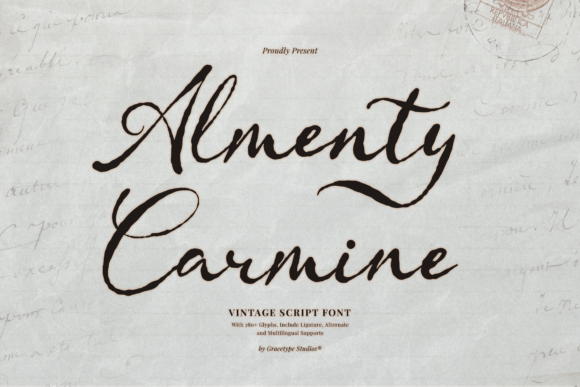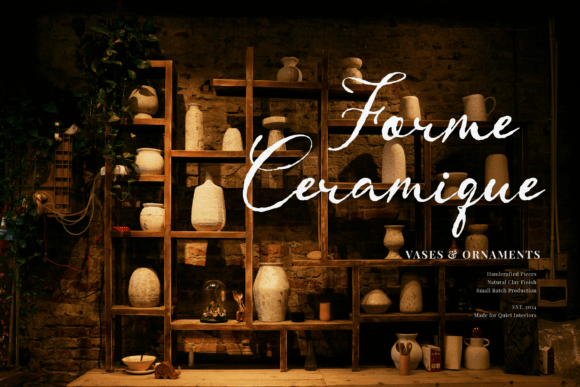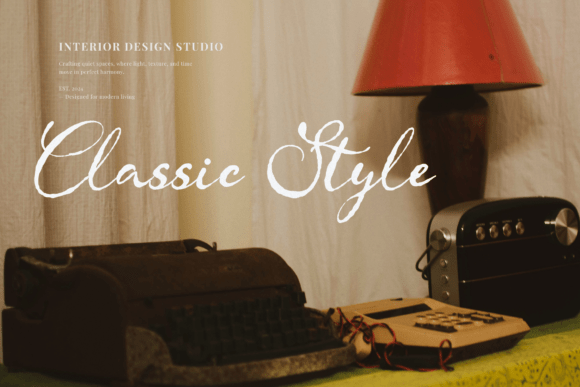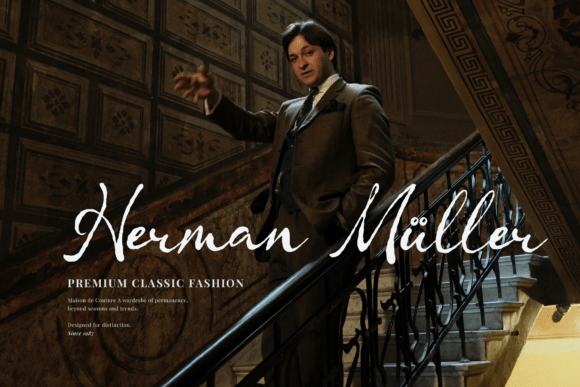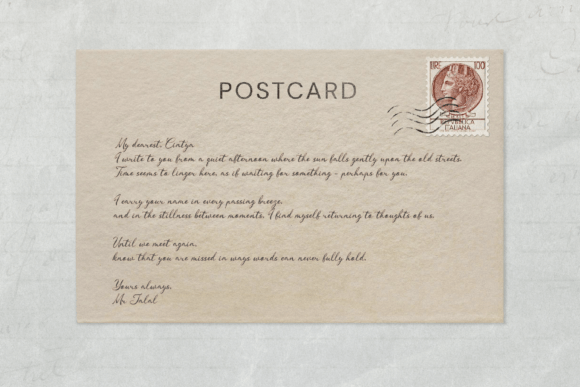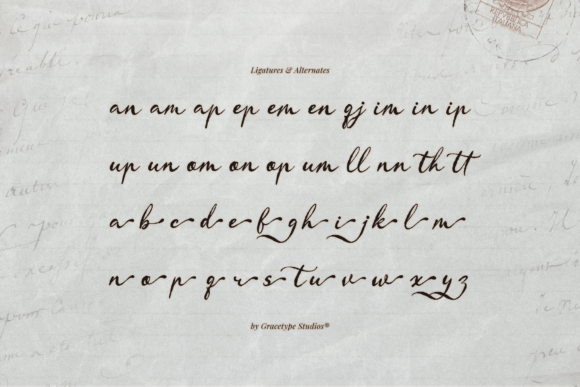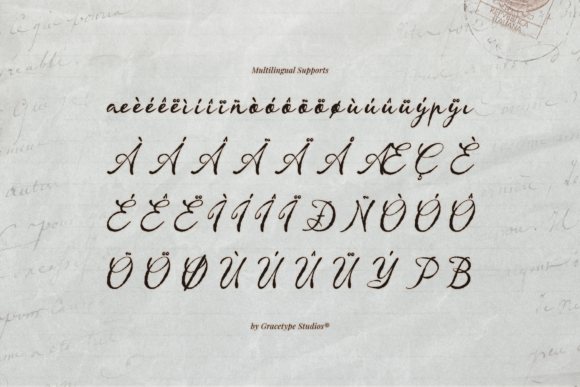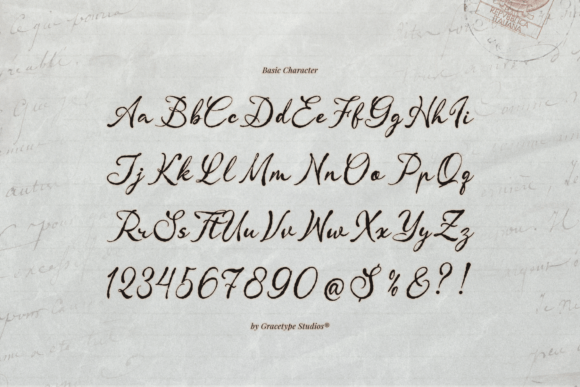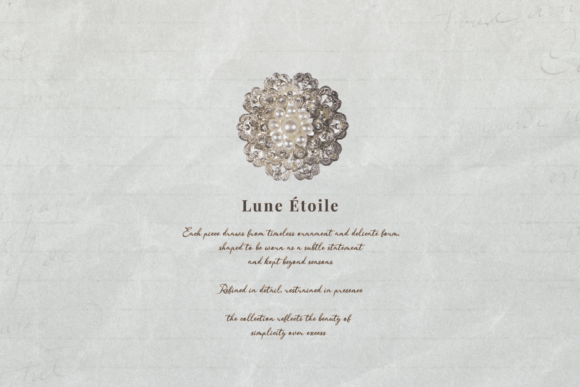
Almenty Carmine Script Fonts
Immerse your designs in the poetic resonance of Almenty Carmine, a calligraphic script that mirrors the soulful cadence of a hand-penned memoir. This typeface celebrates the beauty of human touch, defined by its fluid, organic transitions in weight and ornate, sweeping details that feel both archival and fresh. Whether you are curating a bespoke wedding suite, crafting an artisanal beauty identity, or designing legacy-driven packaging, its balanced silhouette and expressive flow offer an unmatched air of intimacy. Almenty Carmine is the definitive tool for designers seeking to infuse their work with a sophisticated, heritage-rich narrative.